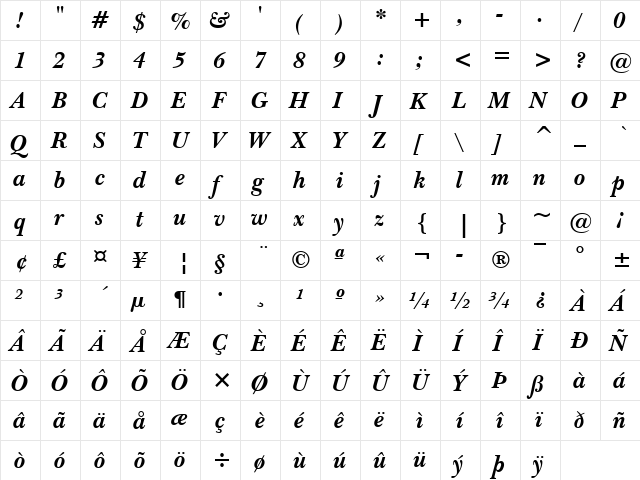
Baskerville Win95BT Bold Italic
Design Context for Baskerville Win95BT Typeface
Baskerville Win95BT offers clean, dependable letterforms without strong stylistic allegiance, making it a practical choice for designers who need flexibility. The slanted form adds forward momentum and visual energy. Its bold stroke weight gives it real presence on the page.
Pro Tip: Use Baskerville Win95BT for emphasis, pull quotes, and subheadings where its slanted energy can add rhythm to the layout.